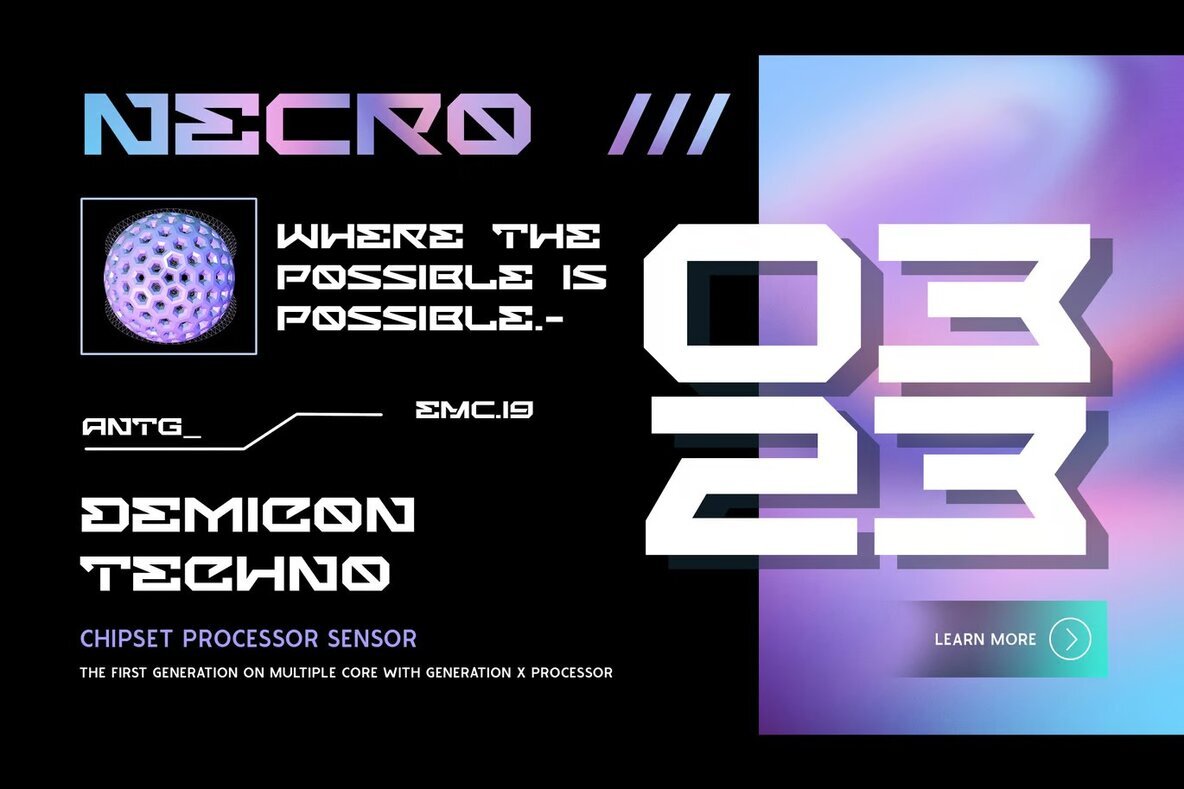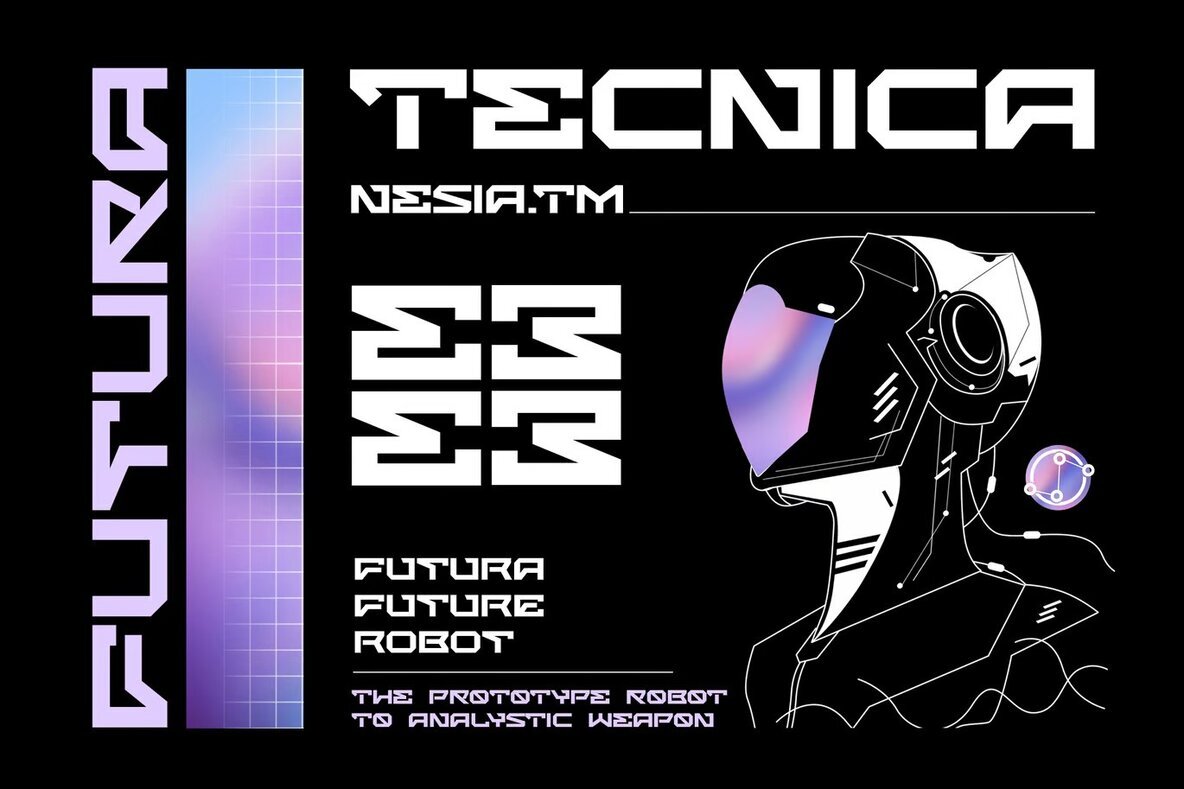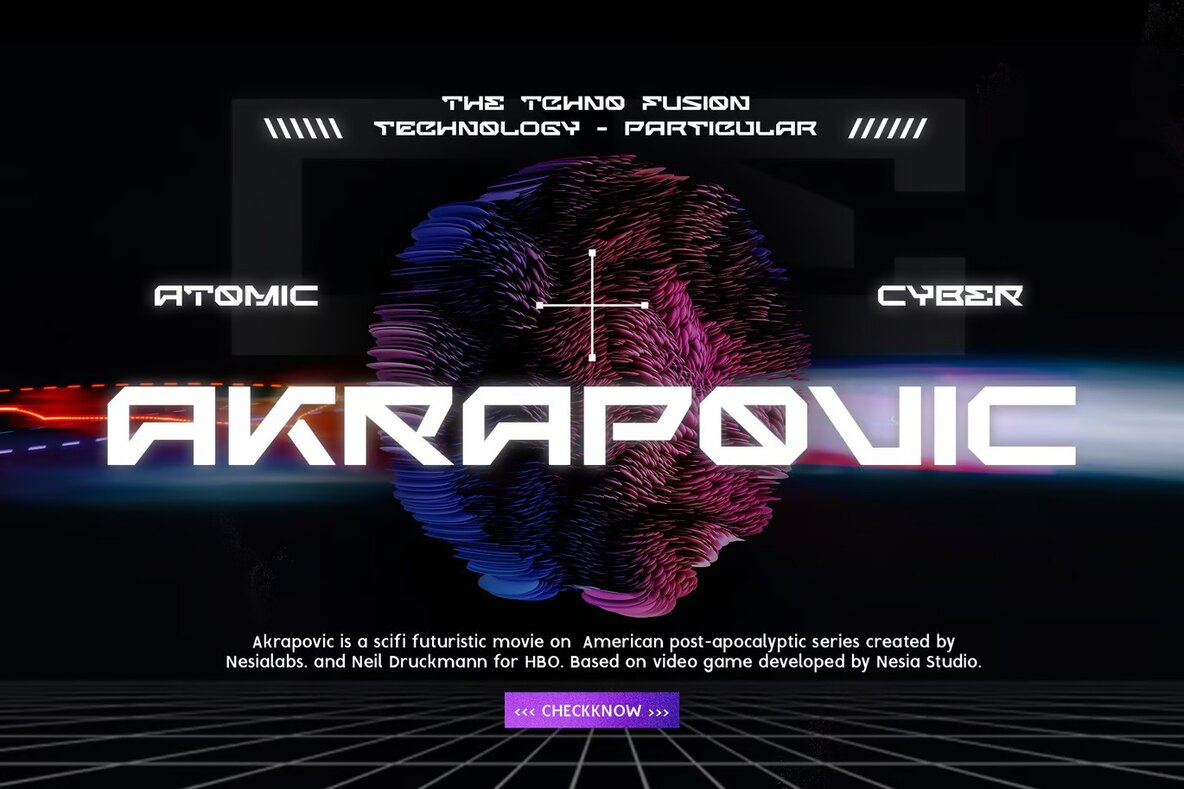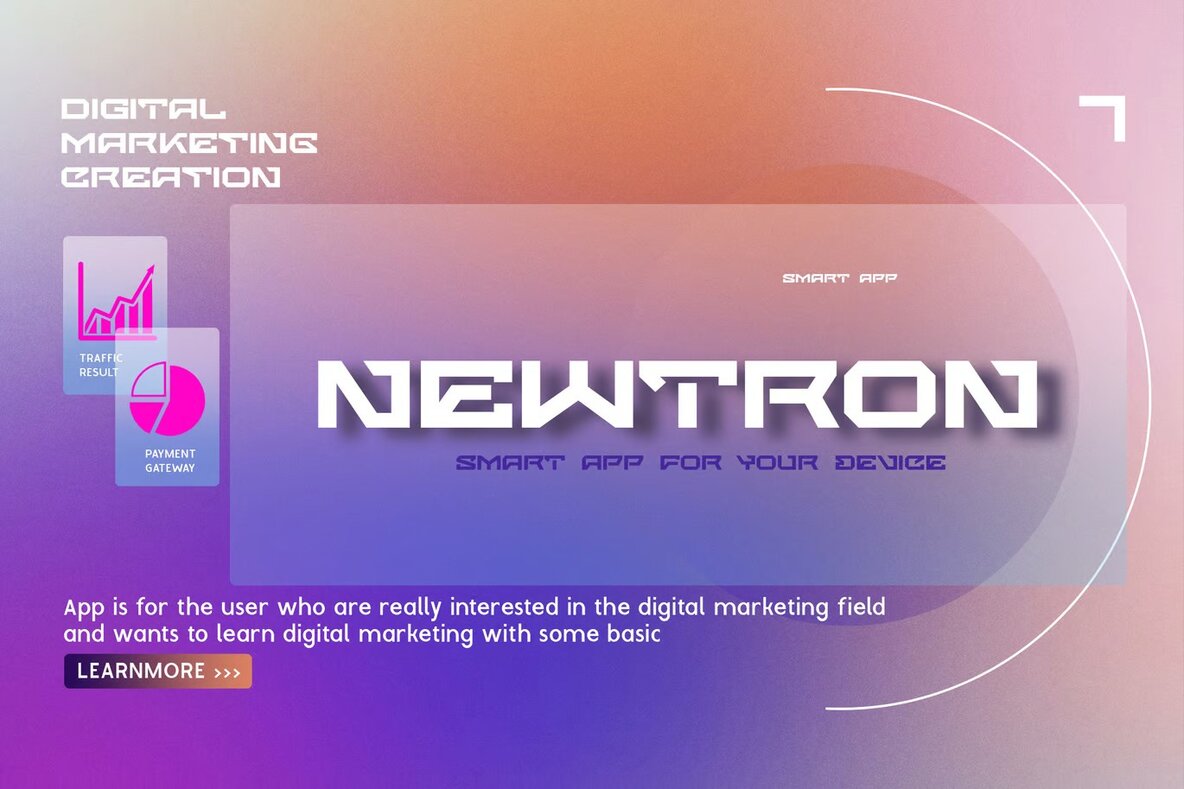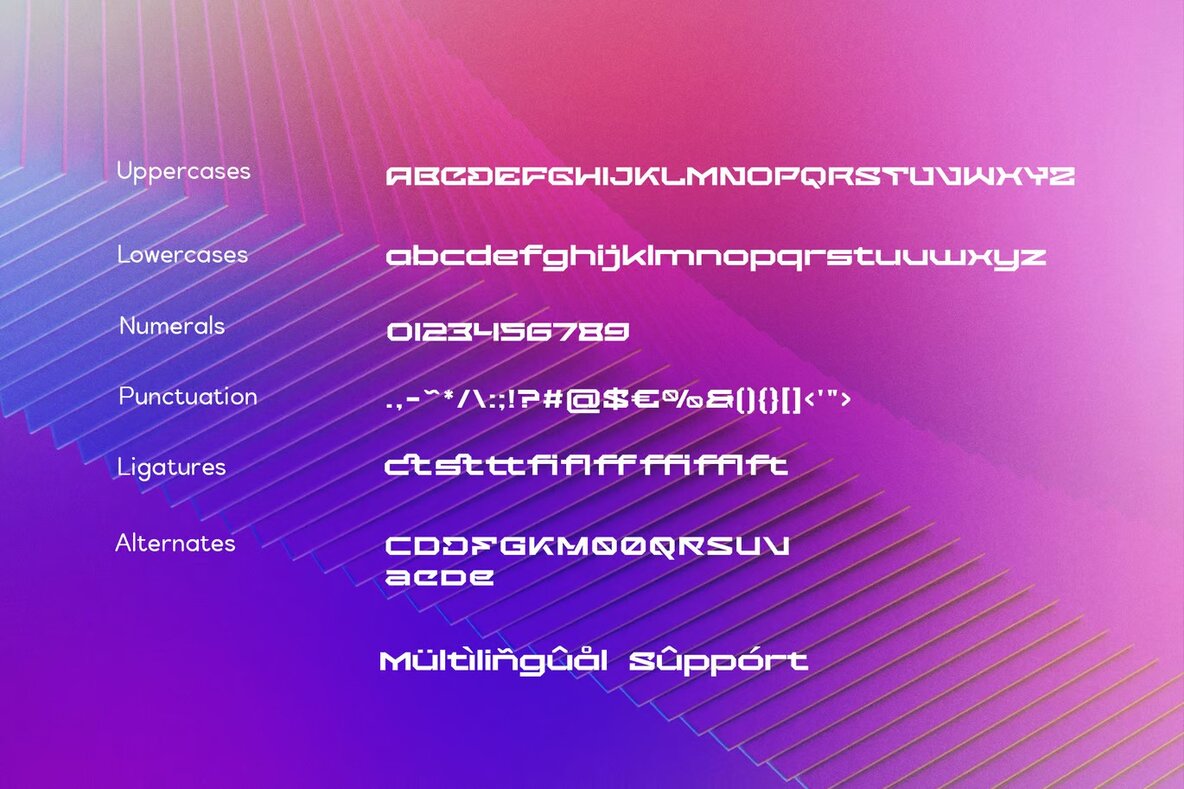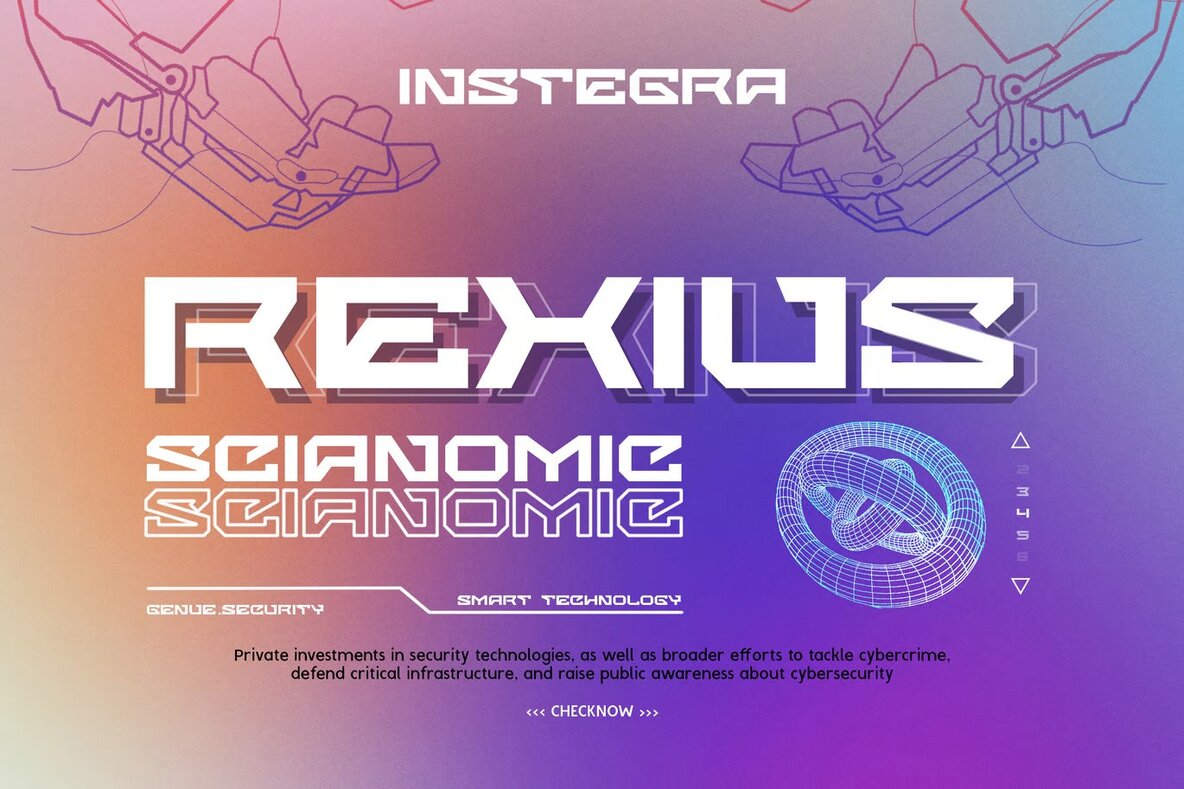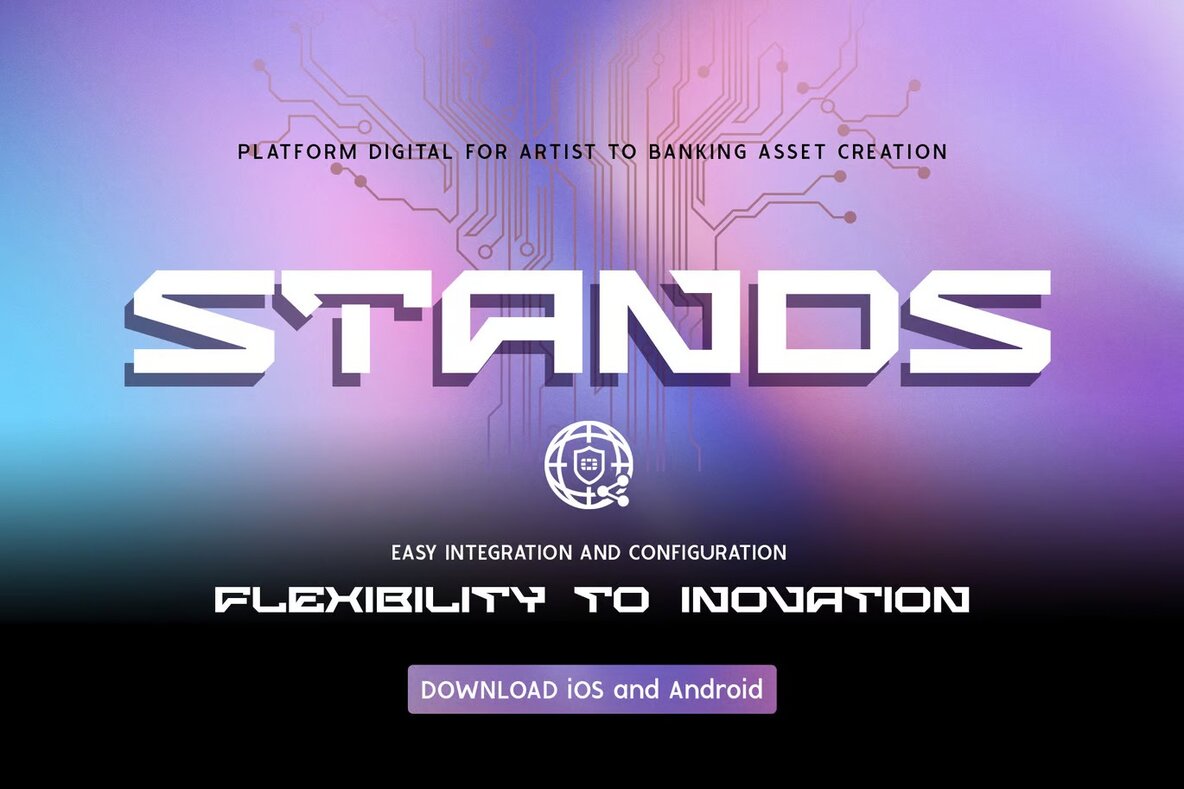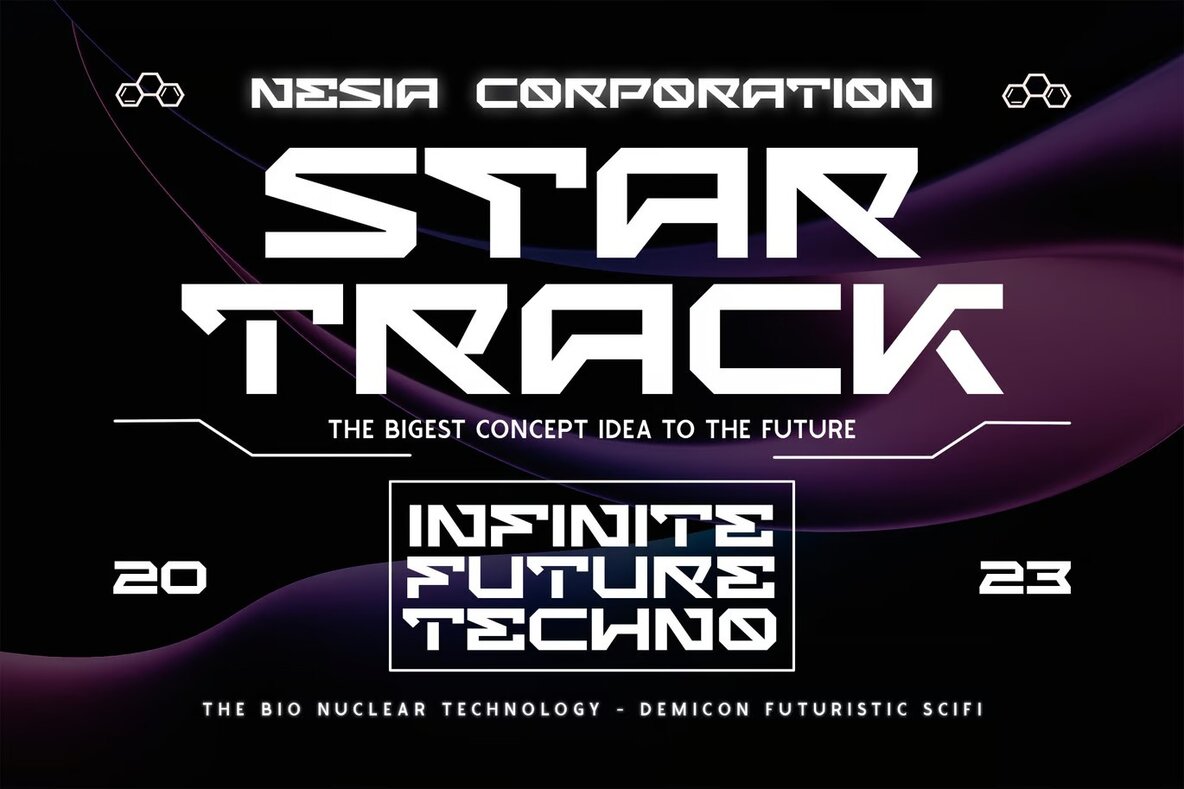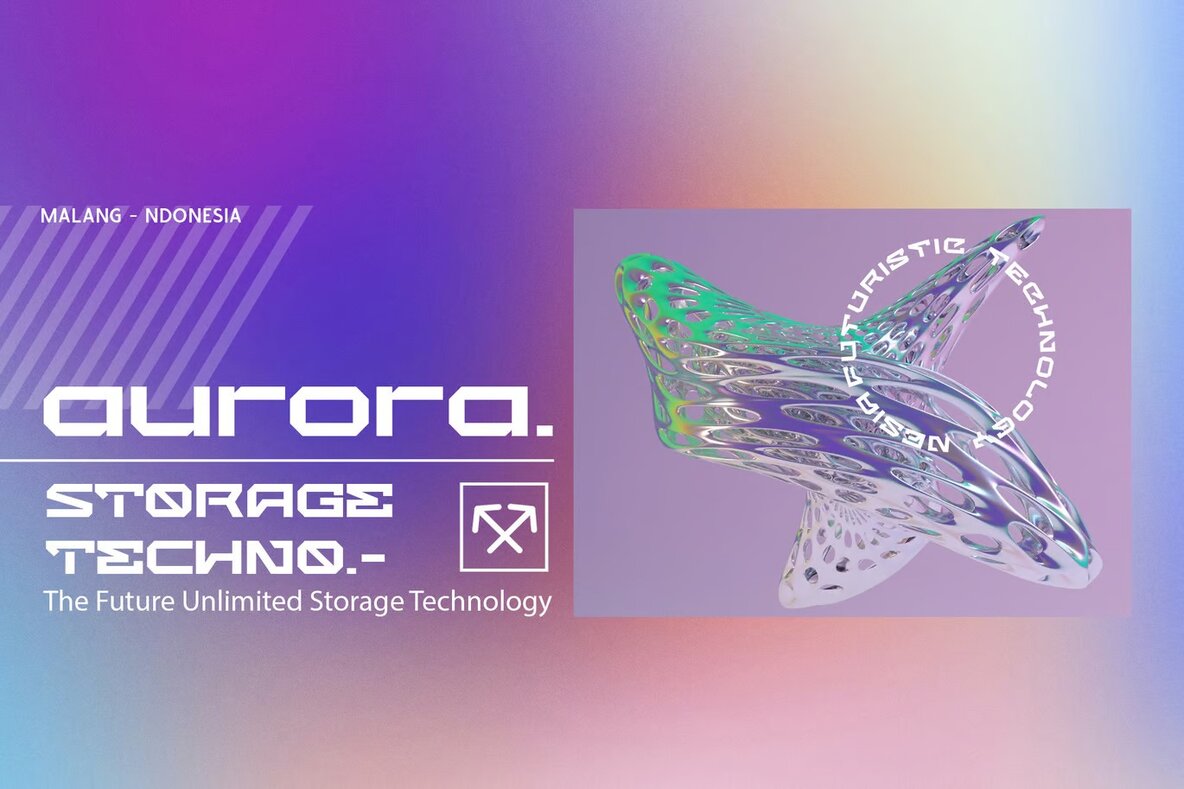
Demicon Font
Demicon Regular
Demicon Font is a stylish, futuristic expanded sans-serif typeface featuring unique ligatures and alternate characters. With its bold appearance, it’s perfect for eye-catching headlines and standout graphic designs. This typeface seamlessly fits various design projects, including branding, packaging, and advertising. Its versatility makes it suitable for both web and print applications.
Demicon's modern and expanded design ensures your projects will have a strong, impactful presence. Ideal for designers seeking to inject boldness into their work, its contemporary aesthetics highlight the font's usability across diverse creative needs. Enhance your design projects with Demicon's bold and modern flair.